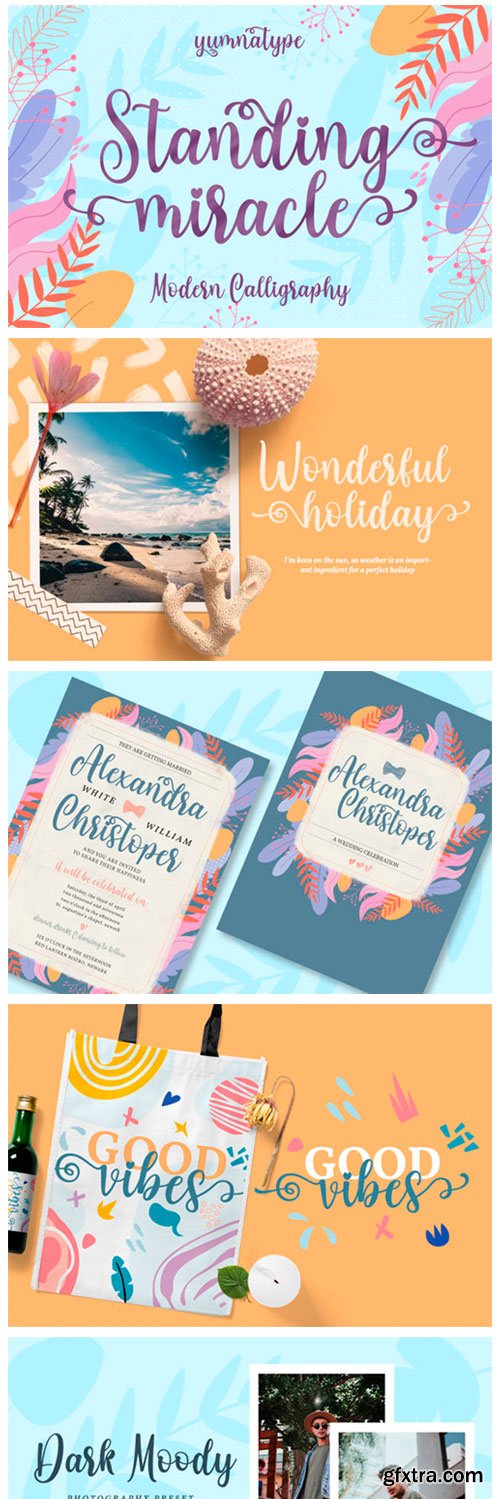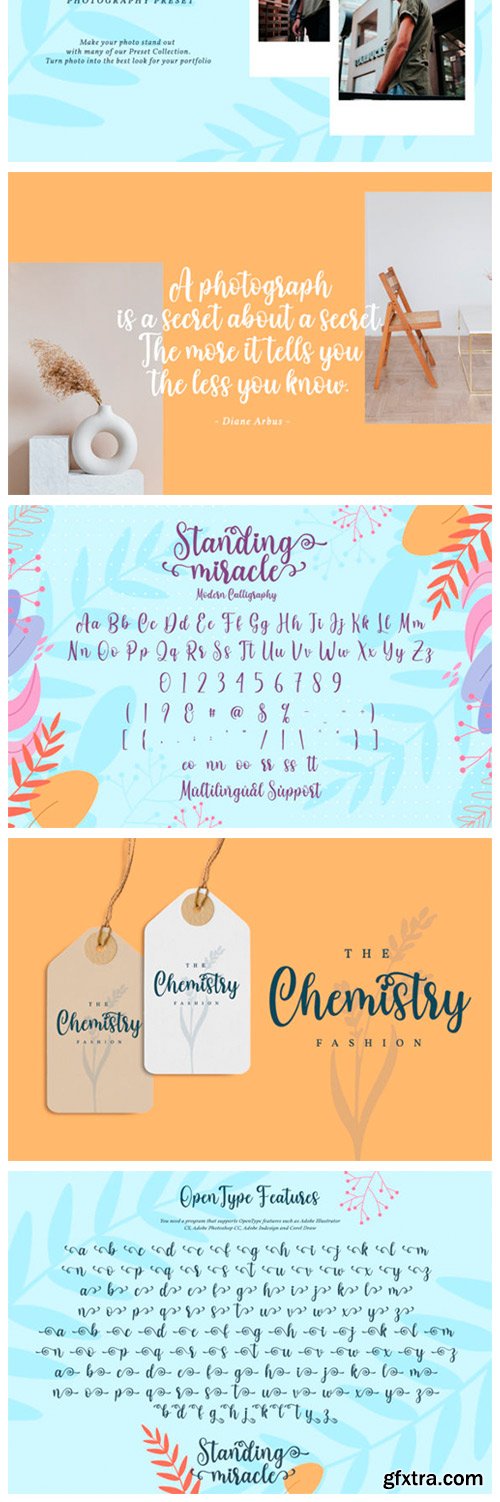
Standing Miracle Font
Standing Miracle feels equally charming and elegant. It is PUA encoded which means you can access all of the glyphs and swashes with ease! It features a varying baseline, smooth lines, gorgeous glyphs and stunning alternates. Fall in love with its incredibly versatile style and use it to create spectacular designs!